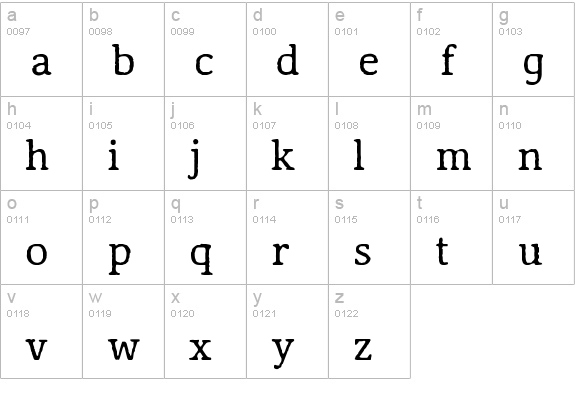
Introducing Antihistory font, a bold and striking typeface that breaks all conventions and redefines the boundaries of typography. With its unique blend of modern aesthetics and vintage charm, Antihistory font is the perfect choice for designers looking to make a statement. This versatile font features clean lines, sharp angles, and a sense of rebelliousness that sets it apart from the rest. Whether you're working on a branding project, editorial design, or any other creative endeavor, Antihistory font will add a touch of sophistication and edge to your work. Best of all, Antihistory font is completely free to download at FontsMarket.com. So go ahead, unleash your creativity and make a bold statement with Antihistory font today!